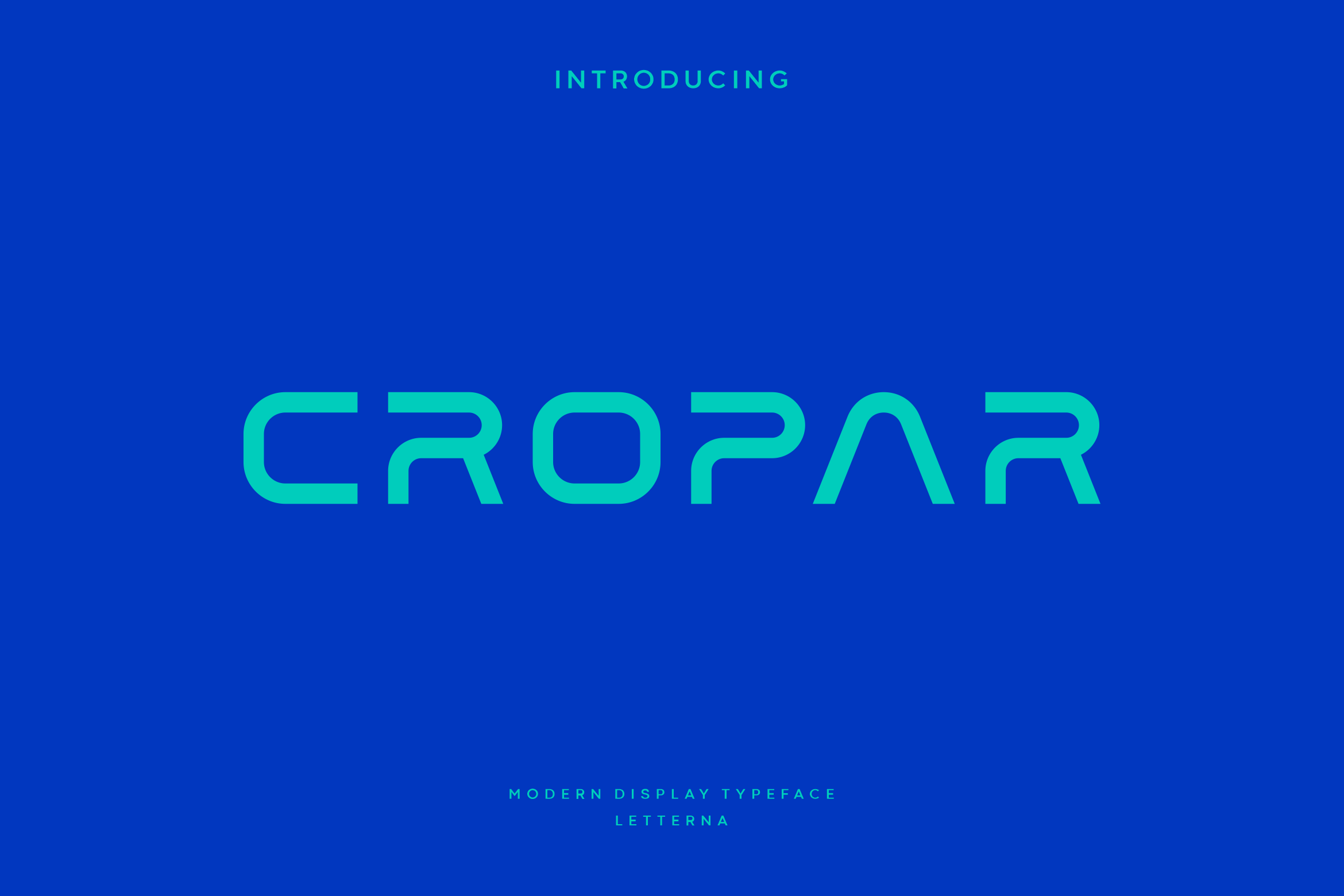
Cropar - Modern Futuristic Typeface
Cropar font creates futuristic hi-tech atmosphere and style. It’s good looking as header and as text both. Use it in your projects in such areas as robots & androids, hi-tech, future, virtual reality, space, sport and many others.